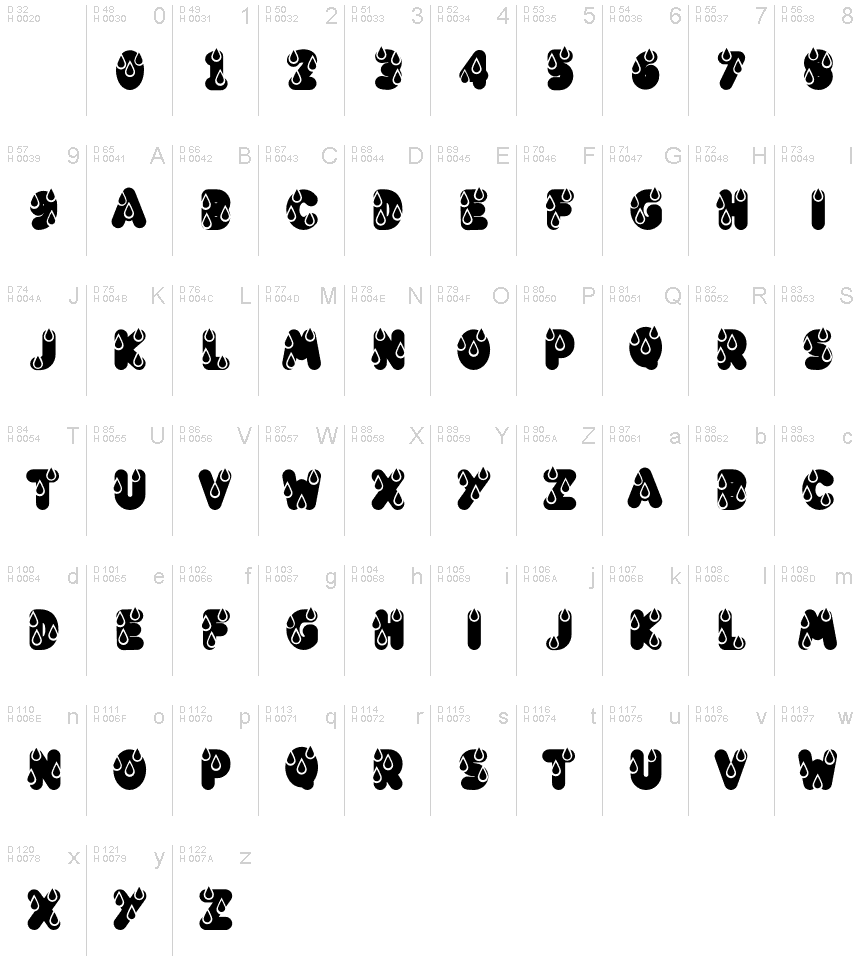
Rainy Font Bold
Rainy Font Bold, from the Rainy Font family by Design Vector10, is a striking display font that adds a touch of whimsy and personality to your designs. With its decorative style and extra-bold weight, this font commands attention and makes a bold statement. Its playful design resembles drops of rain falling from above, making it perfect for projects in need of a creative and unique touch.
Use Rainy Font Bold for eye-catching headlines, posters, branding materials, or any project where you want to make a memorable impact.
Let your creativity flow like rain with Rainy Font Bold!